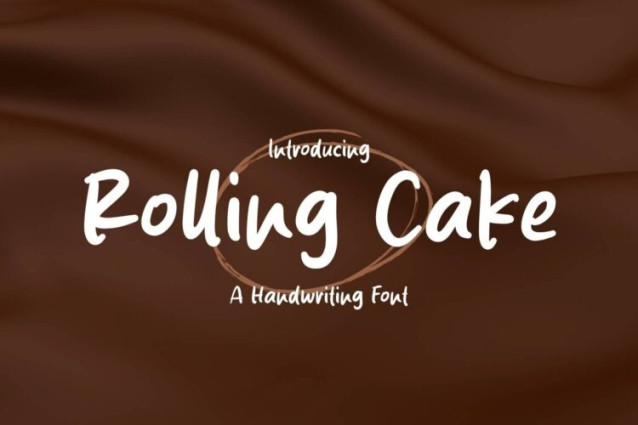
Rolling Cake Font
Rolling Cake Font is a simple and friendly handwritten font. Its natural and unique style makes it incredibly fitting to a large pool of designs. The only limit is your imagination!